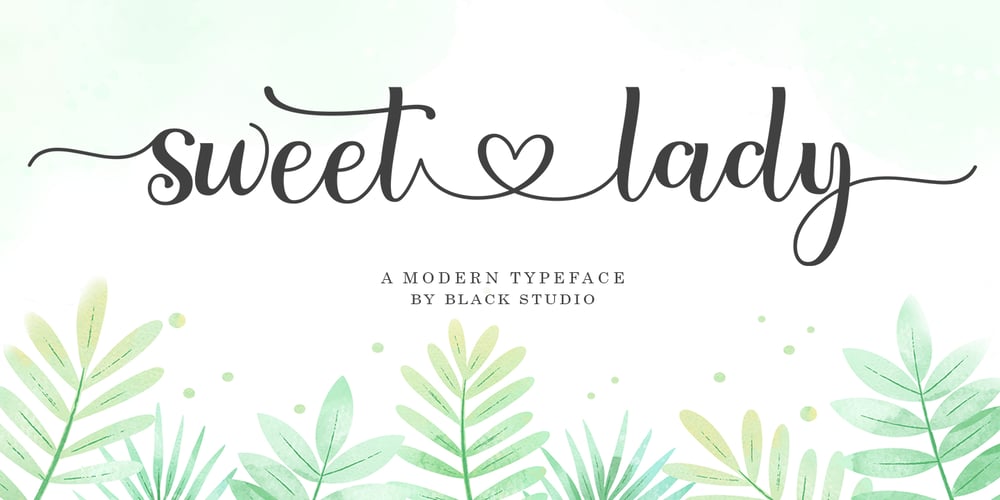
Sweet Lady Font Family was designed by Reza Haitami and published by Black Studio. Sweet Lady contains 1 styles and family package options. Sweet Lady Script is a new modern script font with an irregular baseline. Feminine style and style. Sweet Lady Script looks beautiful in wedding invitations, thank you cards, quotes, greeting cards, logos, business cards and many more. Perfect for use in ink or watercolor. Includes start and end letters, alternatives and support for many languages.To activate the OpenType Stylistic alternative, you need a program that supports OpenType features such as Adobe Illustrator CS, Adobe Indesign & CorelDraw X6-X7, Microsoft Word 2010 or a later version. There is an additional way to access alternatives / swashes, using the Character Map (Windows), Nexus Fonts (Windows), Font Books (Mac) or a software program such as PopChar (for Windows and Mac).How to access all alternate characters:Thank you for purchasing!